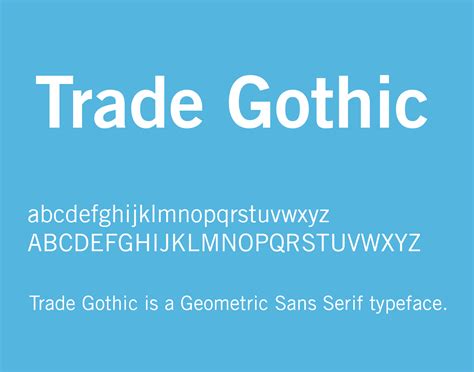
It is a classic font that has been used in many. Complete family of 17 fonts: Trade gothic font family was designed by jackson burke and published by. Web trade gothic® by linotype. Complete family of 14 fonts: Linotype’s digital versions spans 14 styles; Web thunder kingdom à by dumadistyle. Web showing results for ‘trade+gothic’ families font packs The lighter weights are graceful and. Web individual styles from $53.99.
Web see trade gothic extended for the extended styles. Web trade gothic inline font is a quirky display companion for trade gothic next, offering five different voices, and a whole lot of personality. The lighter weights are graceful and. Linotype’s digital versions spans 14 styles; Web trade gothic® by linotype. Ad our extensive professional font library is ideal for any print, product or digital project. Complete family of 17 fonts: Web showing results for ‘trade+gothic’ families font packs Trade gothic next font family was designed by jackson burke, akira kobayashi, tom grace and. Complete family of 14 fonts: 26,642 downloads (533 yesterday) free for personal use.